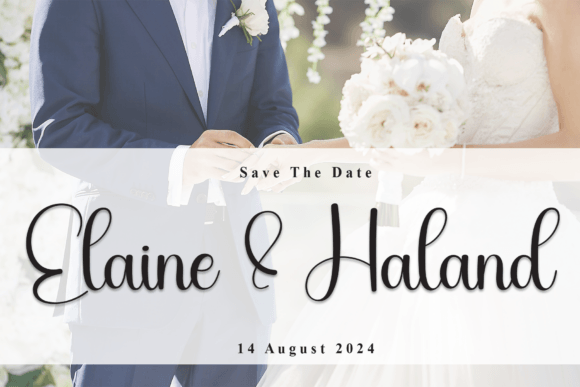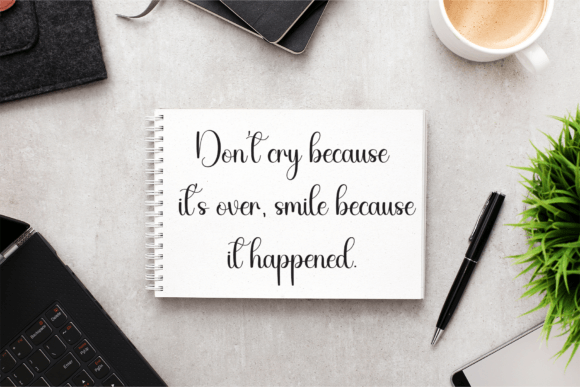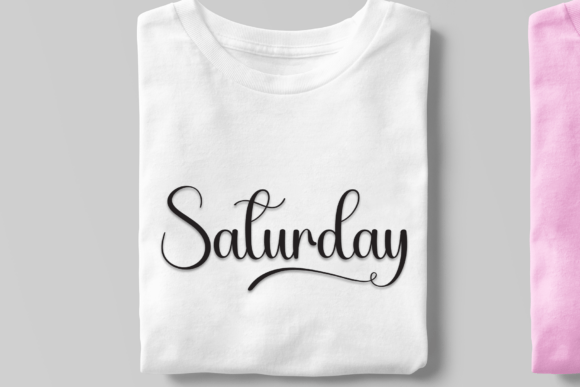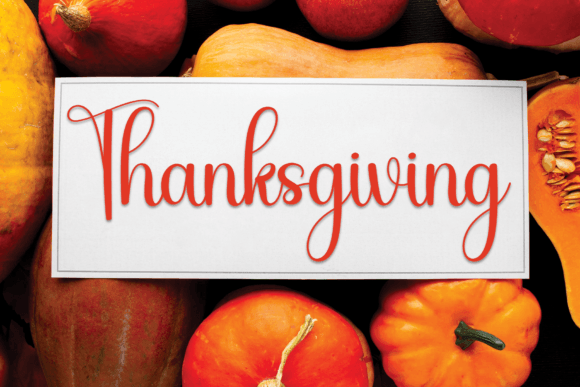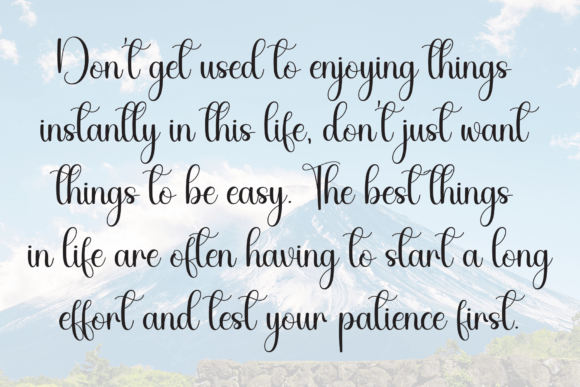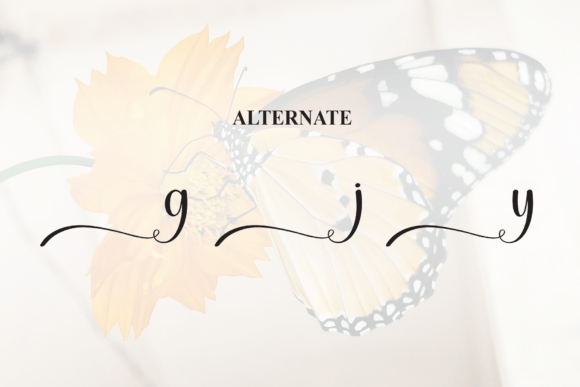
Introducing Butterfly Font: Elevate Your Designs with Elegance and Style
Are you a designer or crafter looking for a font that can add a touch of sophistication and whimsy to your projects? Look no further than the Butterfly Font. This stylish and incredibly elegant script font is perfect for a variety of design applications, from wedding invitations and thank you cards to quotes, greeting cards, logos, and business cards.
The Beauty of Butterfly Font
Butterfly Font is a stunning script font that exudes elegance and refinement. Its flowing lines and delicate curves make it perfect for designs that require a handwritten touch. The font’s unique and intricate design elements will add a level of sophistication to any project, making it ideal for designers and crafters who want to create something truly special.
Wedding invitations, thank you cards, and other event-related designs are a perfect match for Butterfly Font. The font’s elegant and refined appearance will add a touch of luxury to any wedding or event, making it perfect for couples who want to create a lasting impression. Whether you’re designing formal or informal wedding invitations, Butterfly Font is sure to impress.
Ideal for Crafters and Small Business Owners
Butterfly Font is not just limited to professional designers. Crafters and small business owners can also benefit from using this beautiful font in their designs. From greeting cards and quotes to logos and business cards, Butterfly Font can add a personal touch to any project. Its versatility and elegance make it perfect for a variety of applications, from DIY crafts to small business branding.
Key Features of Butterfly Font
- Elegant and refined design: Butterfly Font features a unique and intricate design that exudes elegance and sophistication.
- Perfect for handwritten designs: The font’s flowing lines and delicate curves make it perfect for designs that require a handwritten touch.
- Versatile: Butterfly Font can be used in a variety of design applications, from wedding invitations and greeting cards to logos and business cards.
Butterfly Font is a beautiful and elegant script font that is perfect for designers and crafters who want to add a touch of sophistication to their projects. Its versatility, elegance, and refined design make it perfect for a variety of design applications, from wedding invitations and greeting cards to logos and business cards. Whether you’re a professional designer or a crafter, Butterfly Font is sure to inspire your creativity and help you create something truly special.